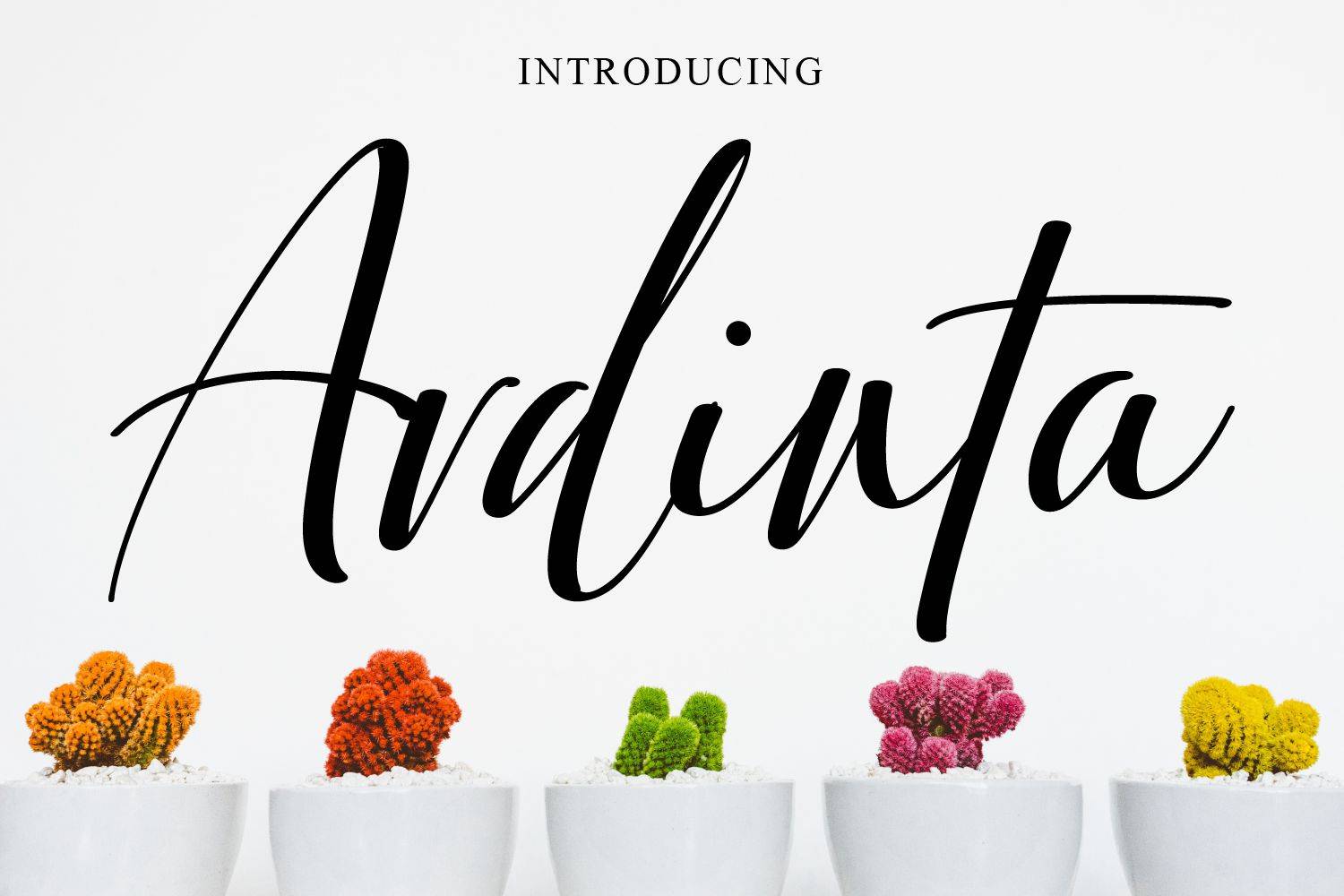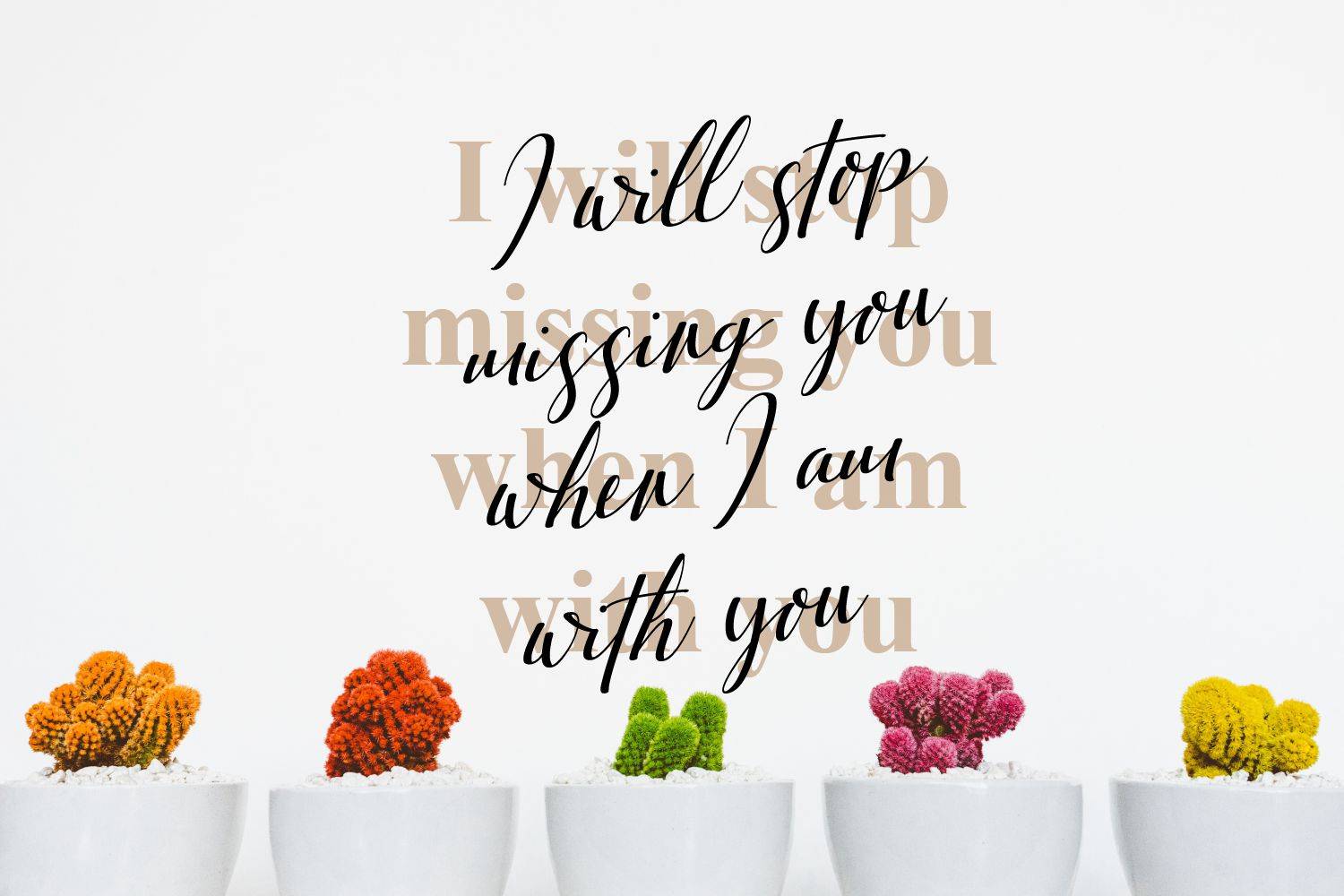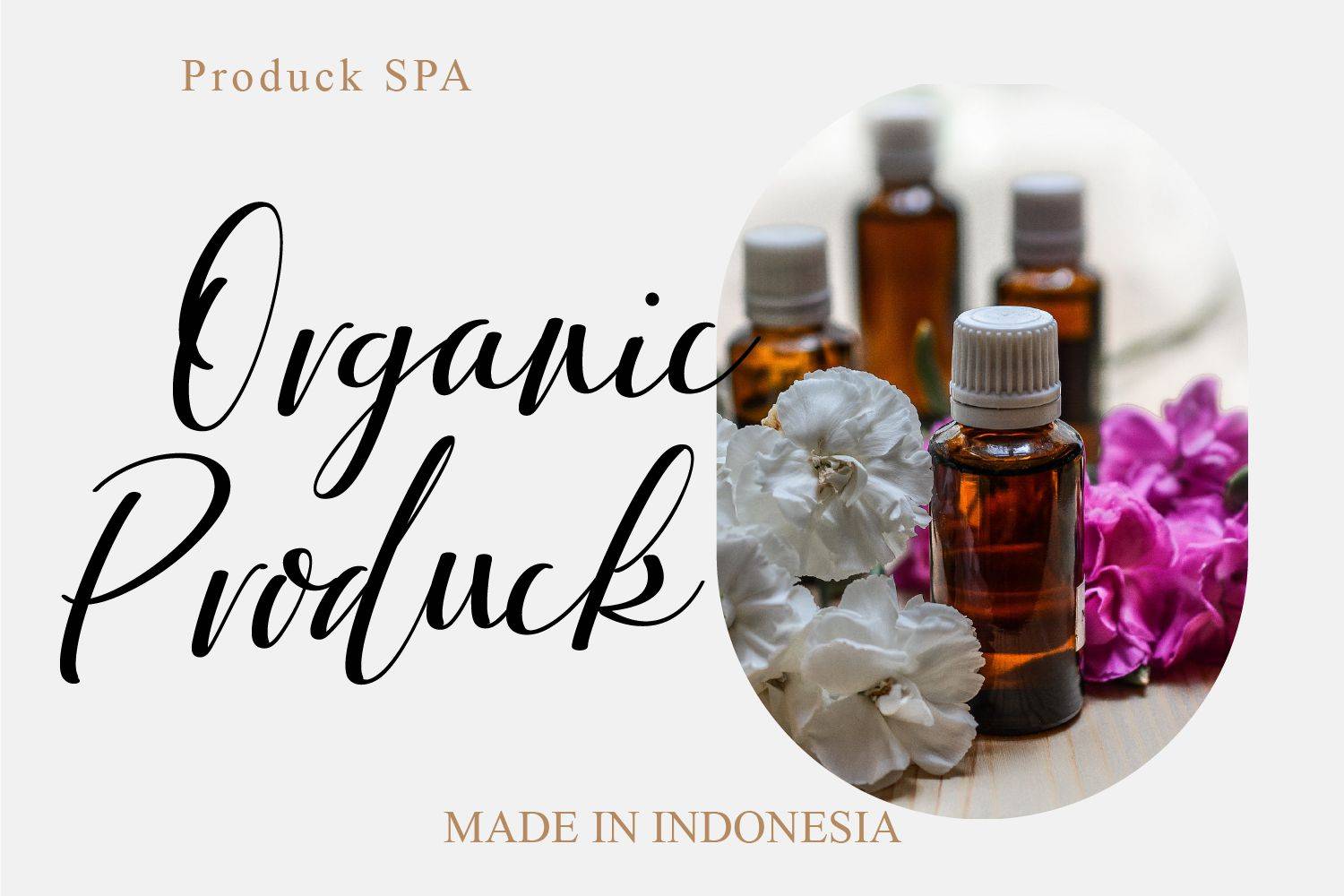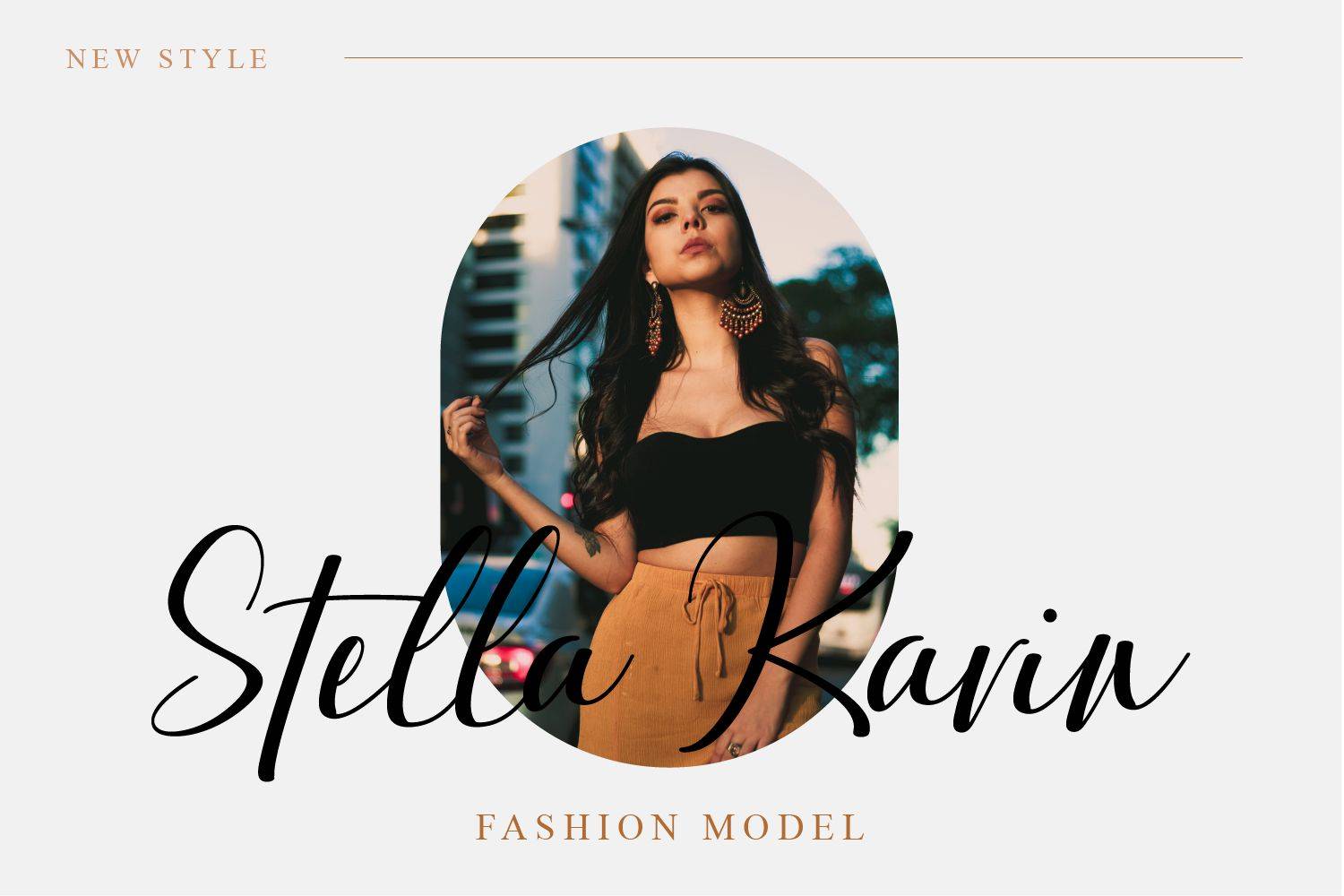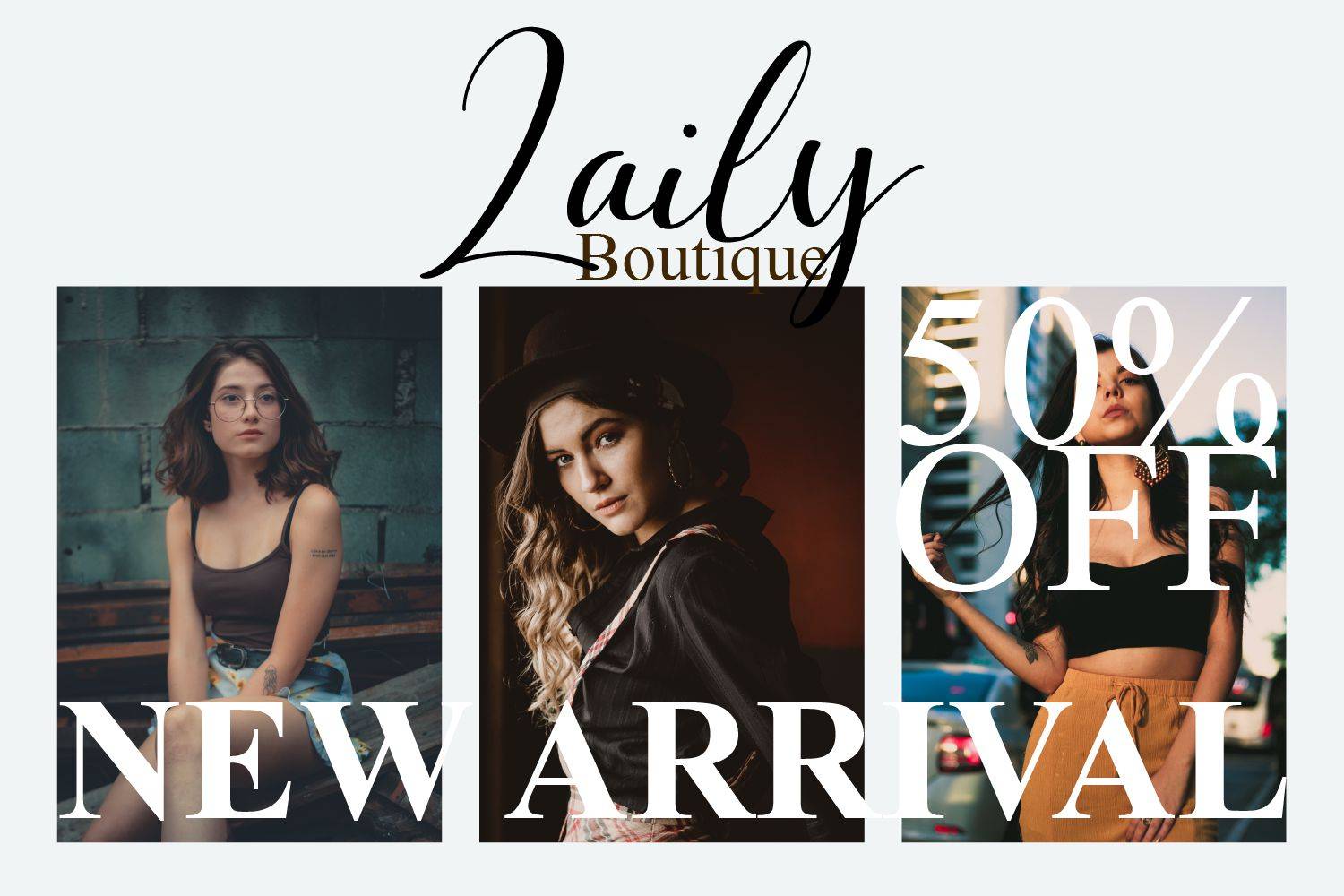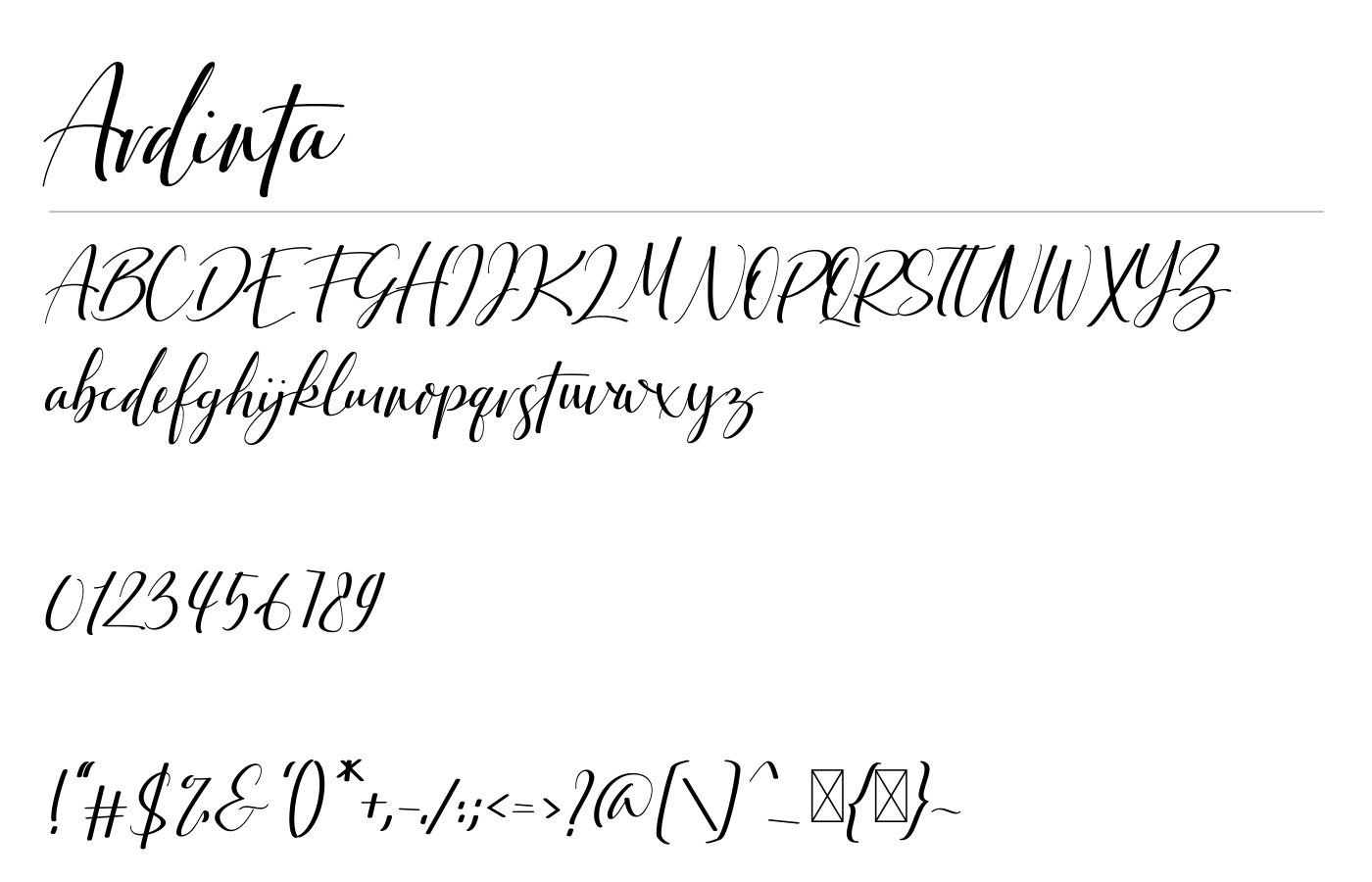
Ardinta is an elegant script font featuring delicate, flowing strokes with a high contrast between thick and thin lines, giving it a graceful, handcrafted feel. Its slender, slightly condensed letterforms with stylish swashes make it ideal for sophisticated branding, wedding invitations, and high-end editorial design where a refined, feminine touch is desired. This font shines best in larger sizes, adding a personal and artistic flair to any project needing a luxurious and modern handwritten look.
Ardinta Font
About Ardinta Font
| Font family | Ardinta Font |
| Designer | Fiqiart |